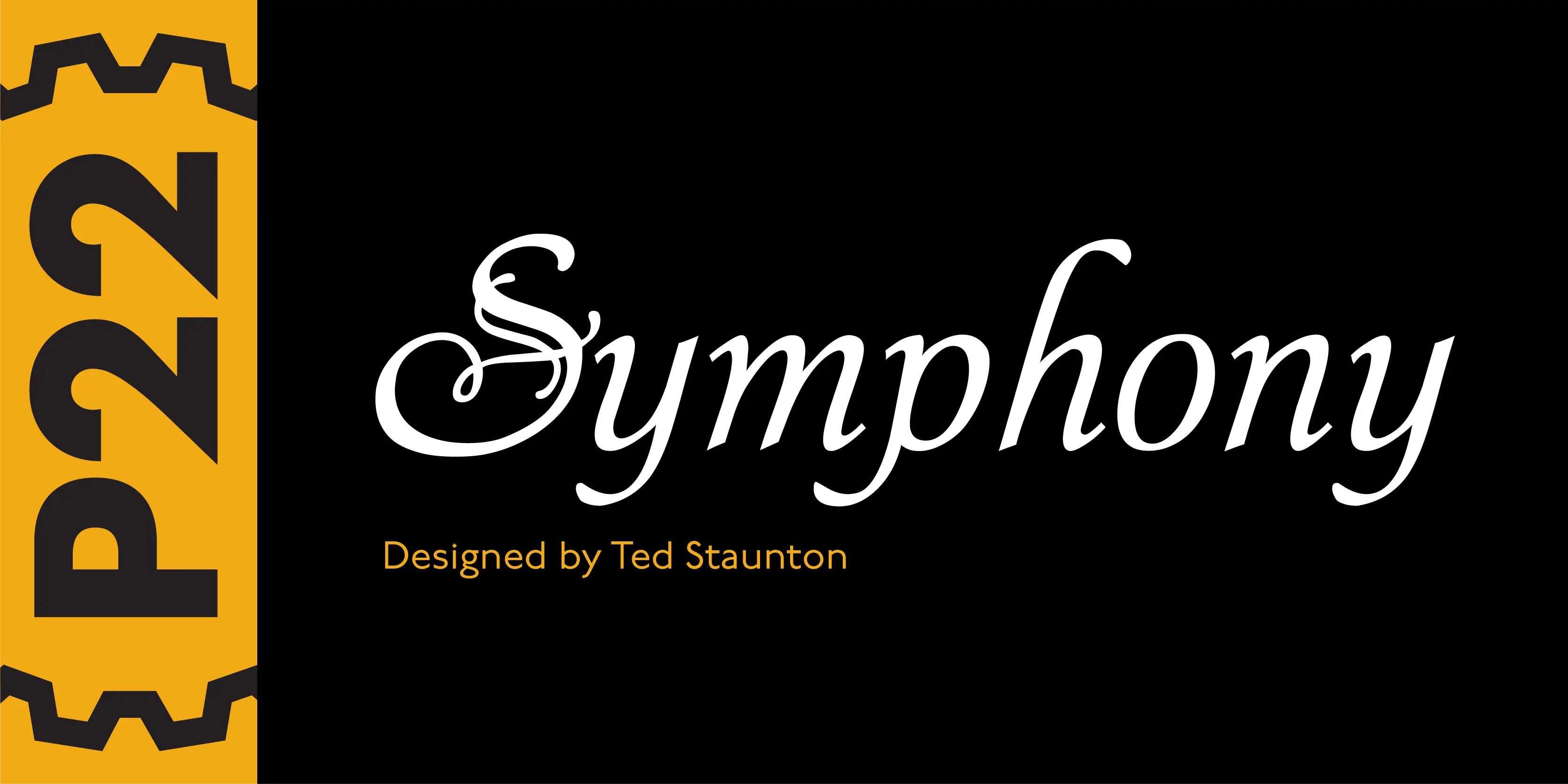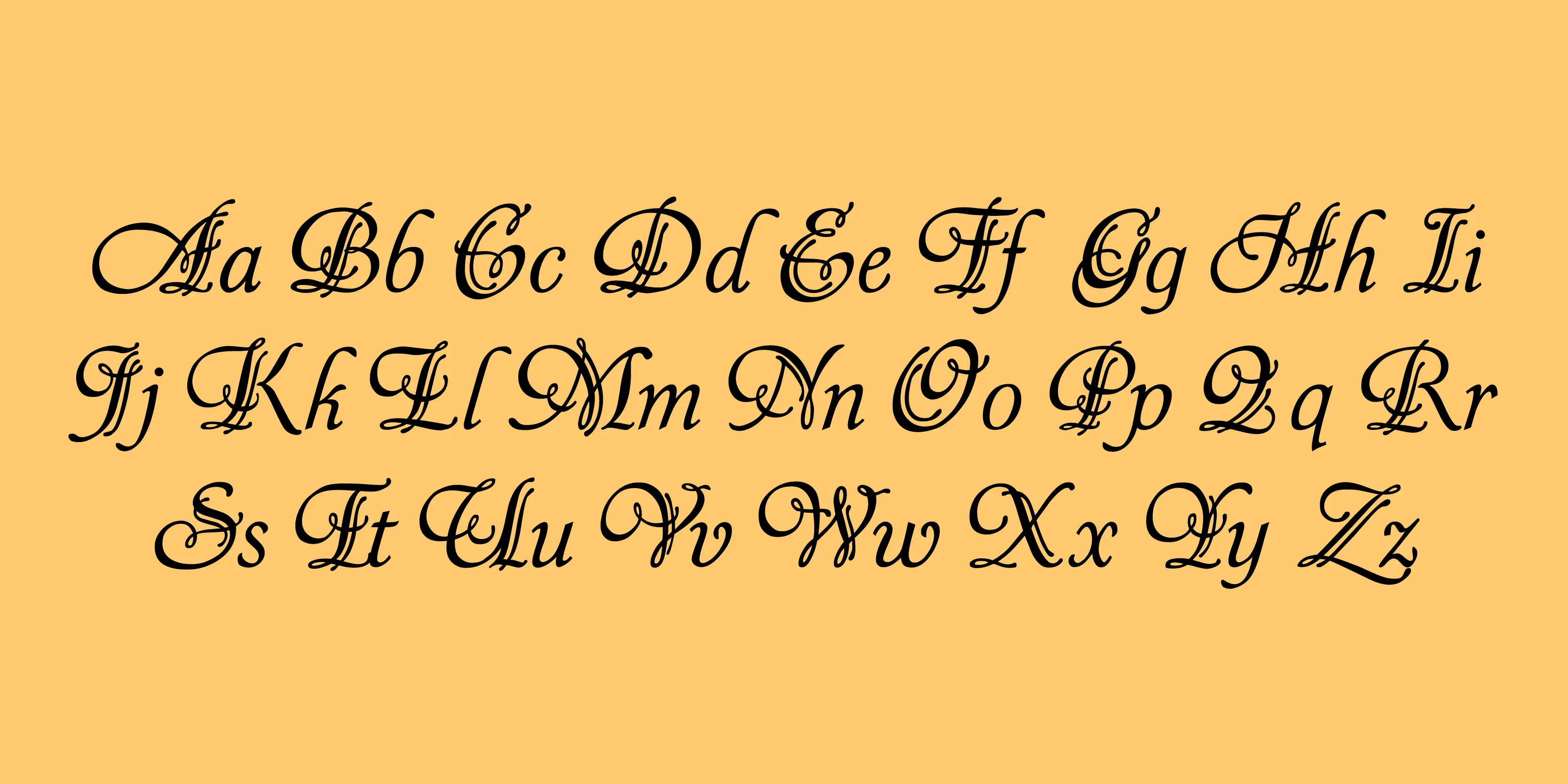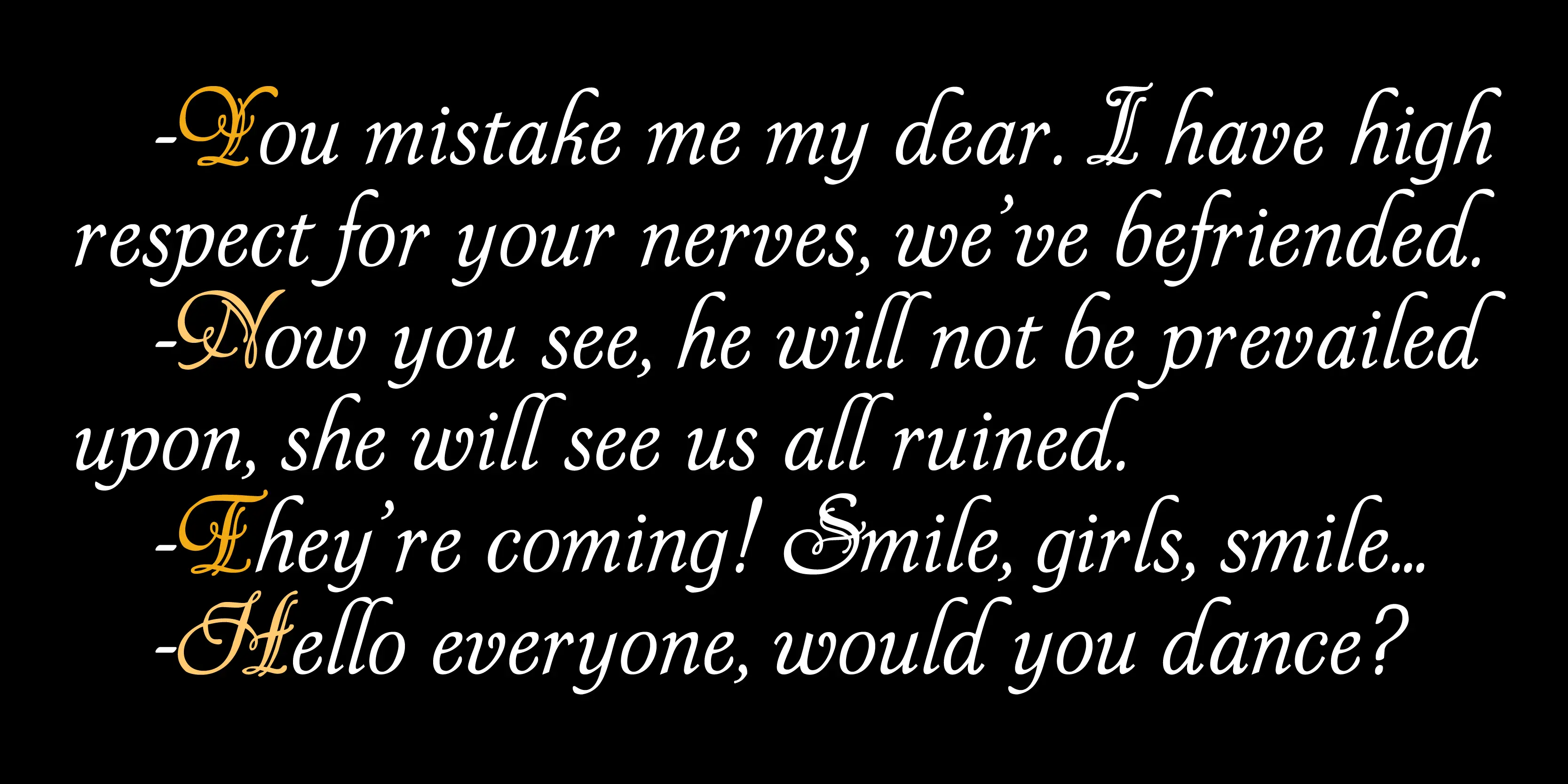
Symphony Font
Symphony
P22 Symphony is a romantic decorative script originally called Zephyr featuring extra flourishes on the capitals. Useful for lines of display in advertising, packaging etc. or for small extracts of poetry.